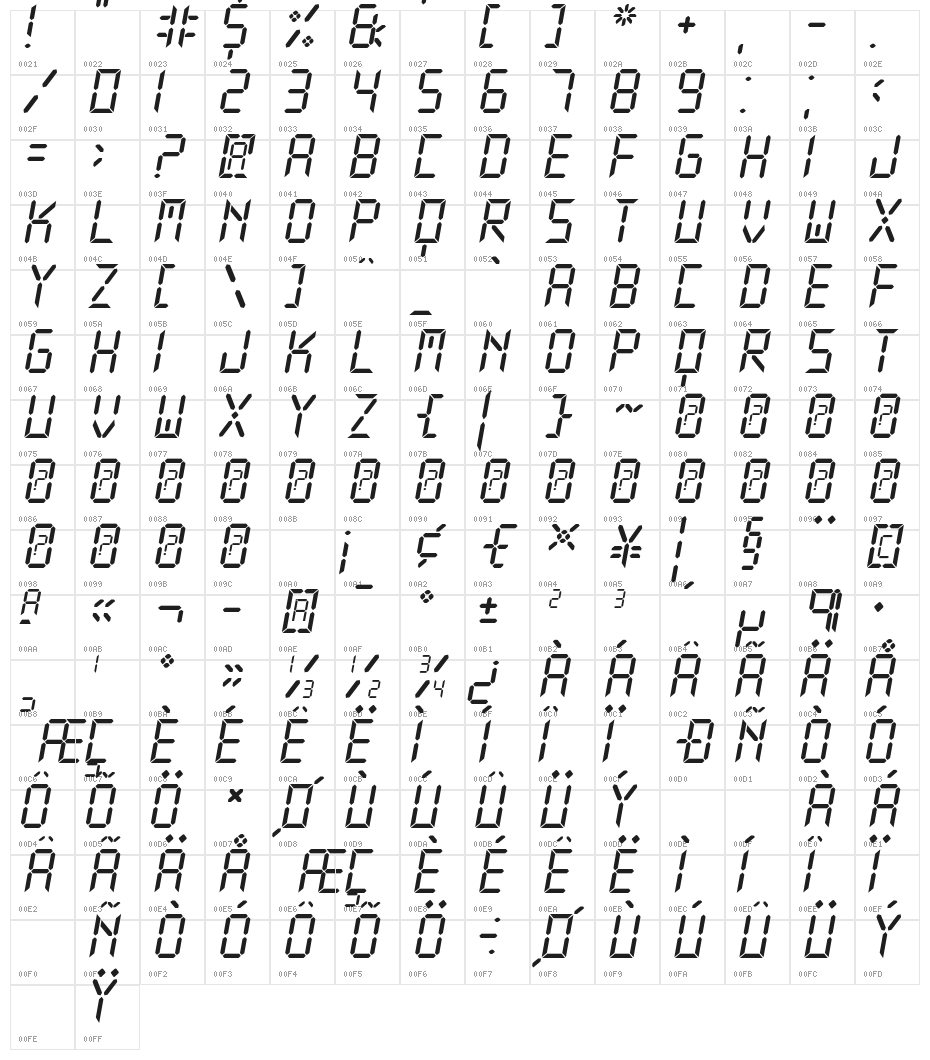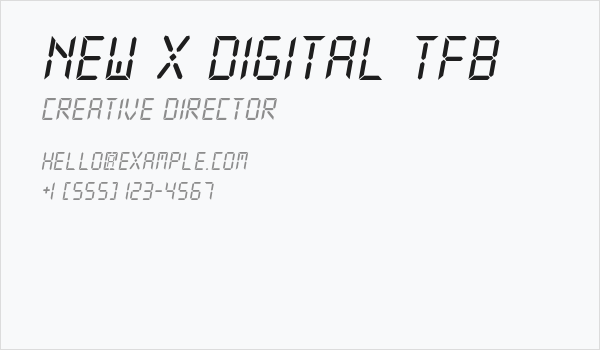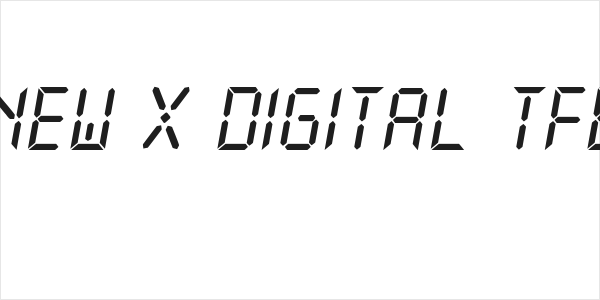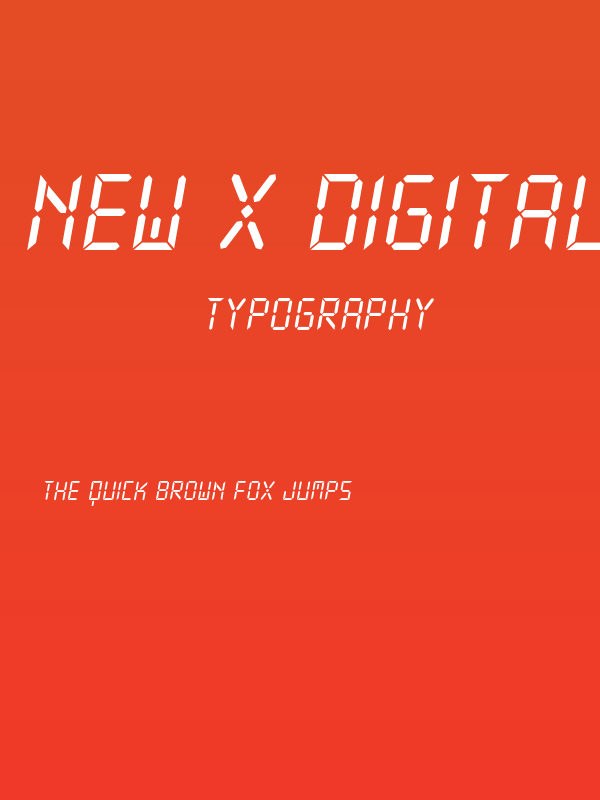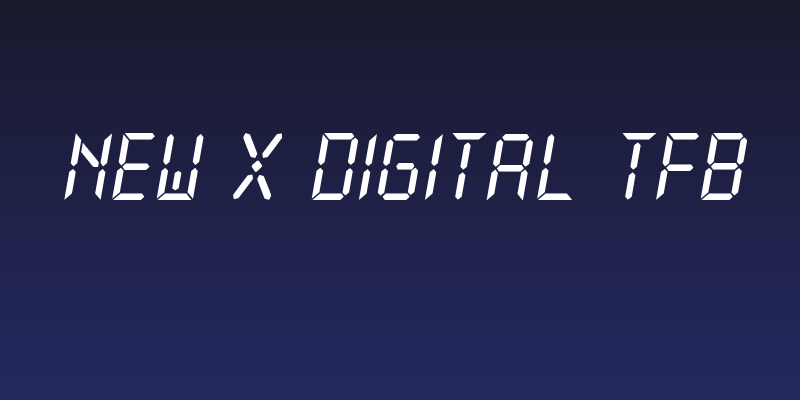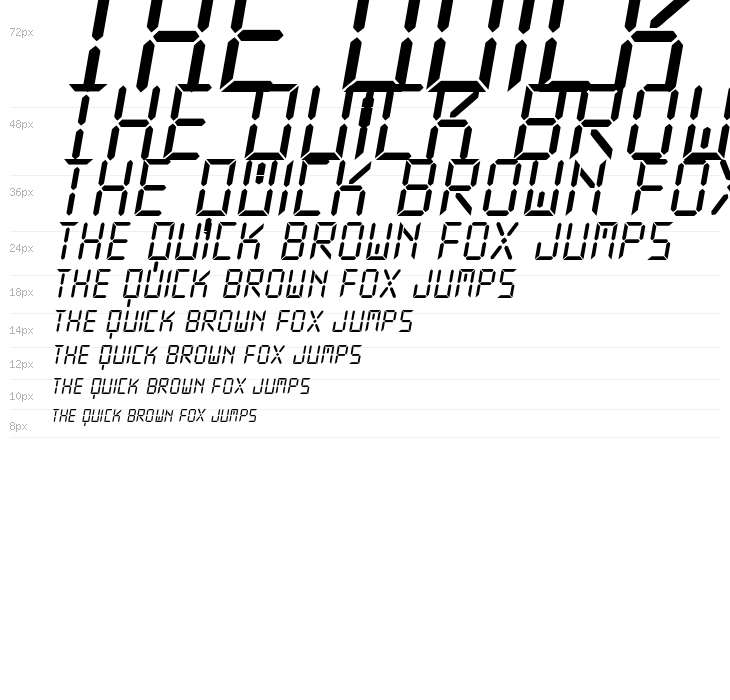
New X Digital tfb Font
New X Digital tfb Description
This font features a digital, futuristic style reminiscent of LED displays and digital clocks. The characters are composed of angular, segmented lines that give a mechanical and high-tech appearance. The uppercase and lowercase letters share a similar structure, maintaining consistency across the alphabet. The numbers and special characters are designed to match the overall digital theme, with sharp edges and a geometric form. This font is ideal for projects that require a modern, tech-savvy look, such as digital interfaces, tech branding, or futuristic designs.
| Use Case | Headlines, Logos, Digital displays |
| Proposed Projects | Ideal for digital displays, tech branding, futuristic designs, and modern interfaces. |